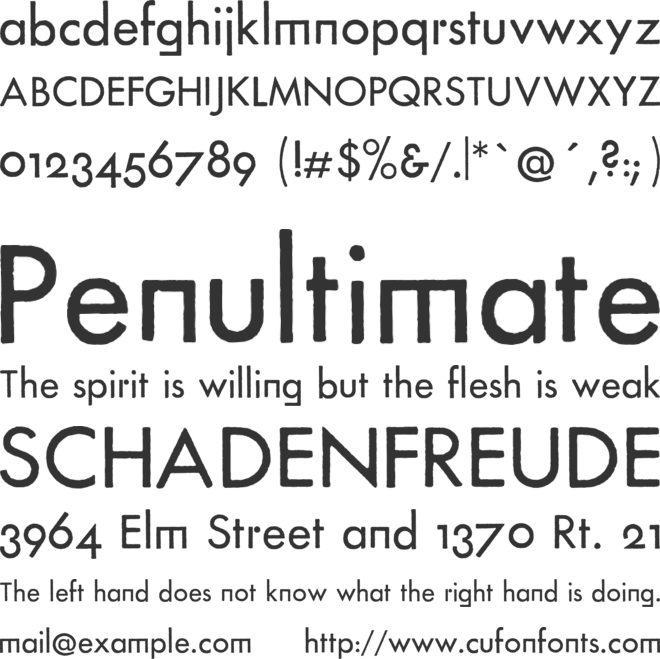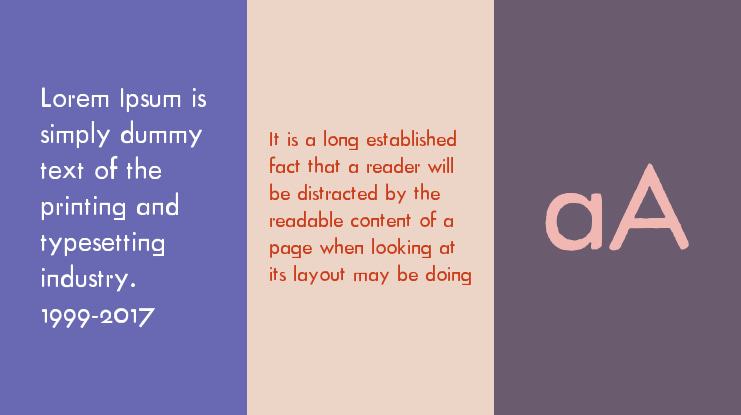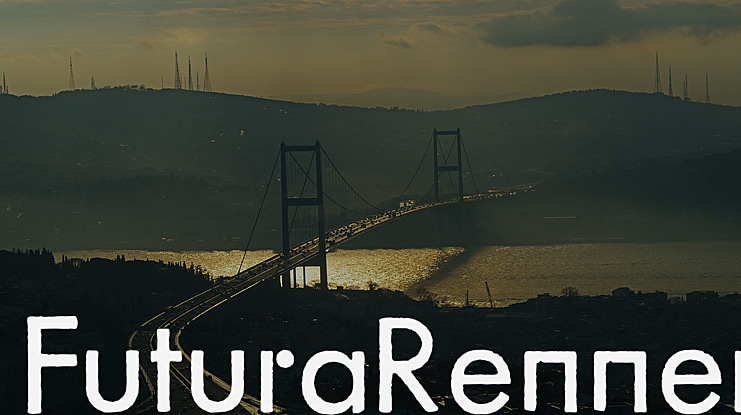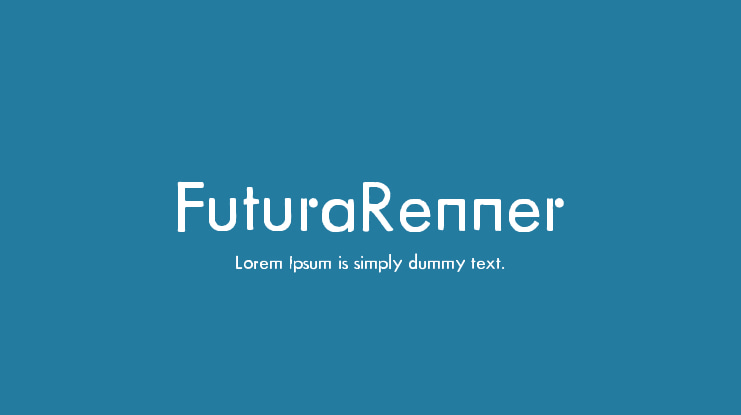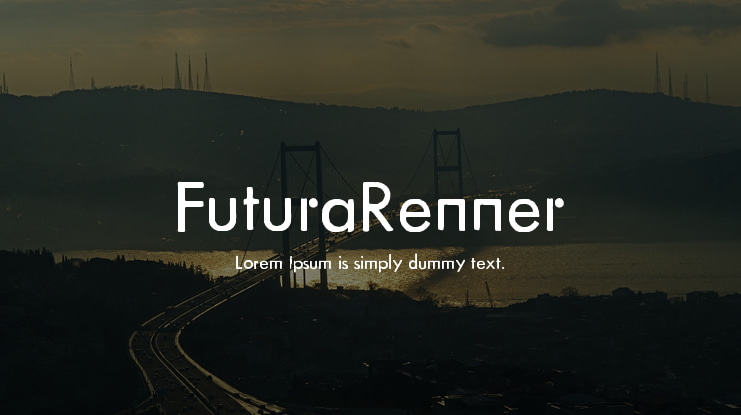
Futura Renner family is a digital version of Futura lead character belonging to the typography department of Ecole Nationale Supérieure des Arts de la Cambre, and probably the first draft of Futura as we know it.